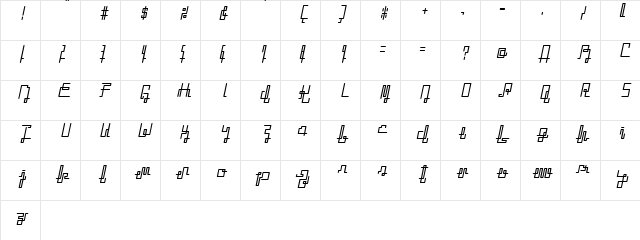
ZETUEcript Oblique Free Font
ZETUEcript Oblique
Design Context for ZETUEcript
ZETUEcript is a composed and adaptable typeface that performs quietly and consistently across a wide range of design contexts. The slanted form adds forward momentum and visual energy.
Pro Tip: Use ZETUEcript for emphasis, pull quotes, and subheadings where its slanted energy can add rhythm to the layout.